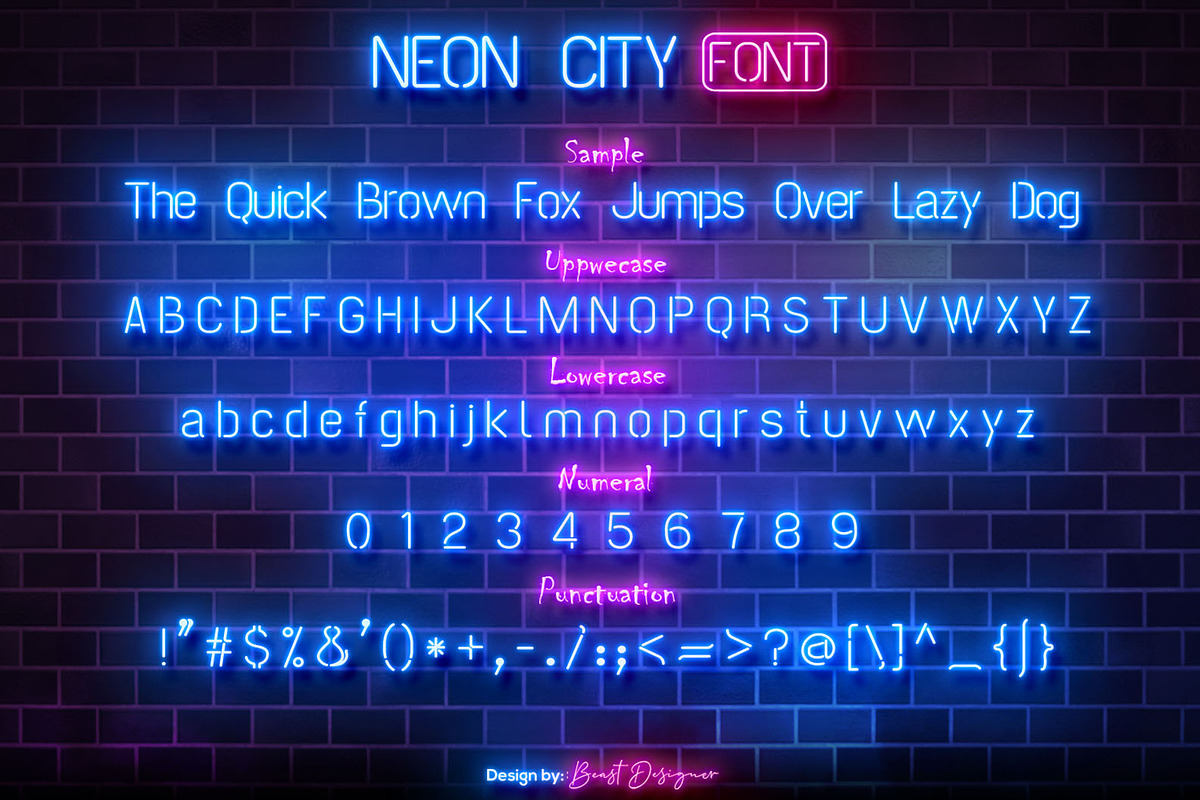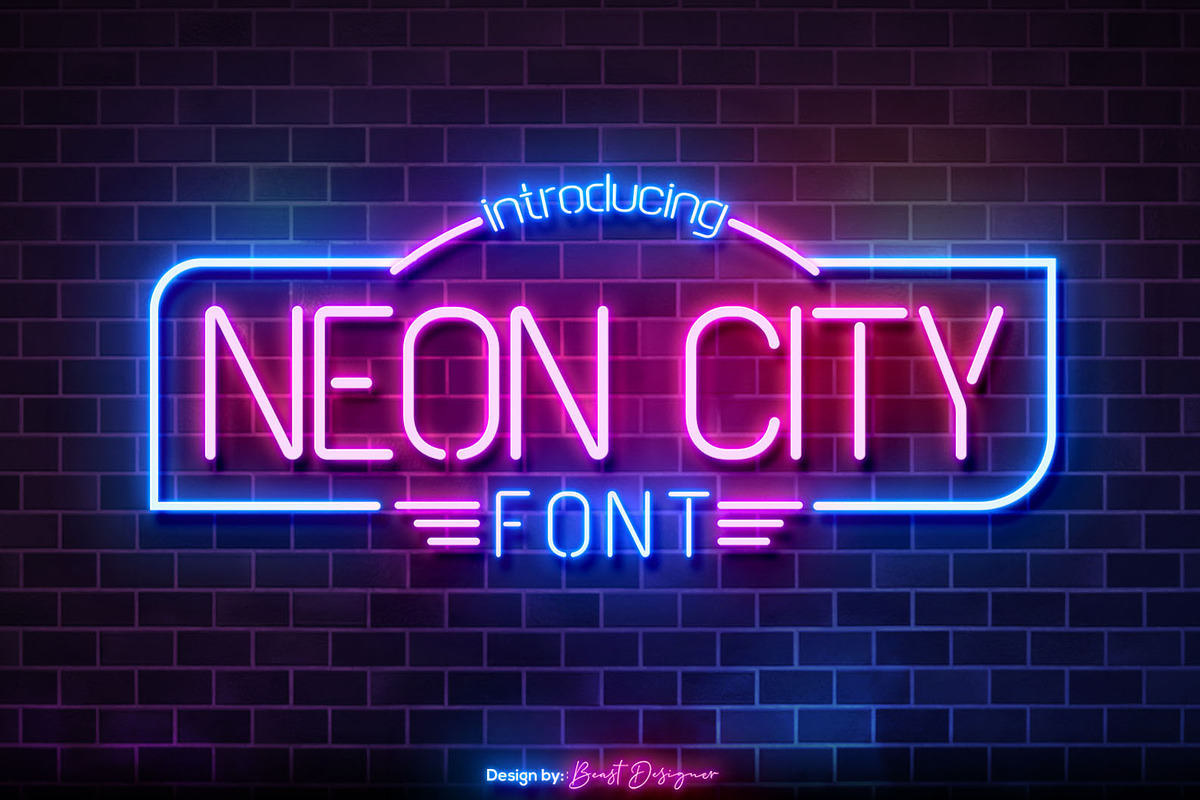
Neon City
Neon City is a retro-inspired geometric display font with a stencil aesthetic. Its minimalistic design makes it versatile for various projects, from eye-catching headlines and branding to posters and other visual materials. The font evokes a sense of nostalgia while remaining modern and clean.